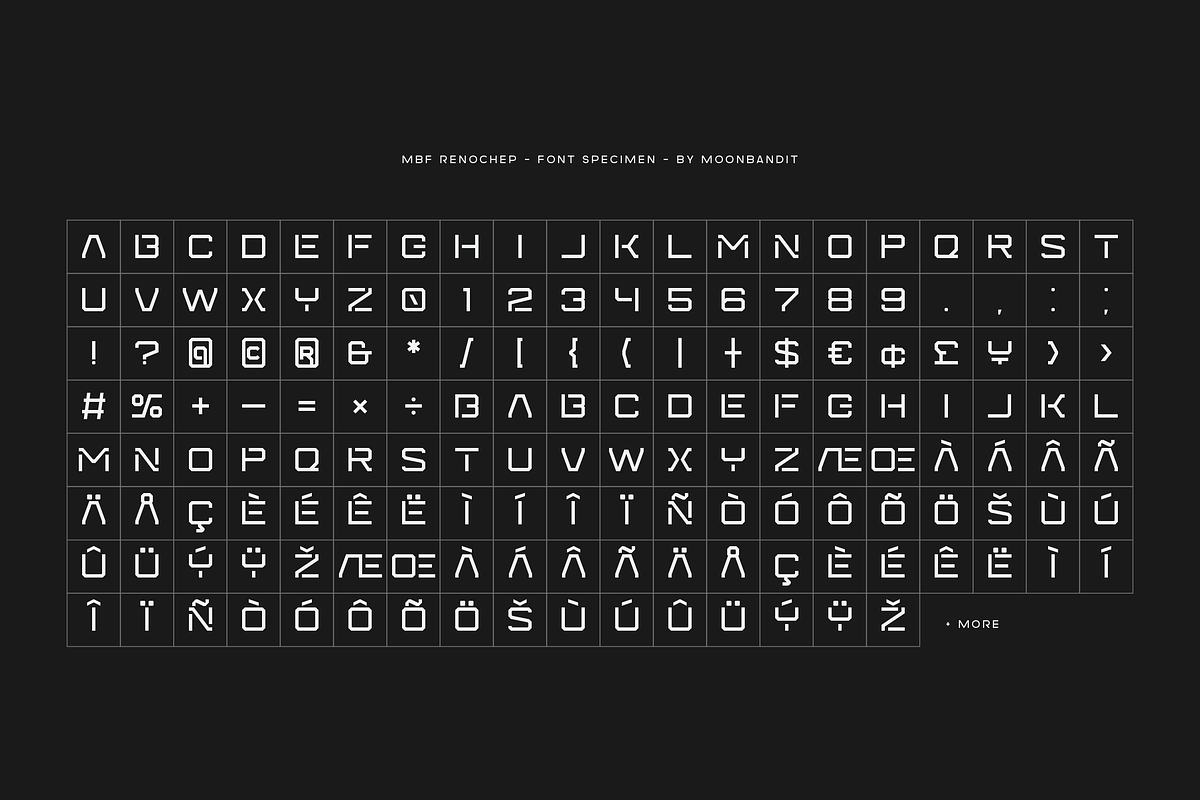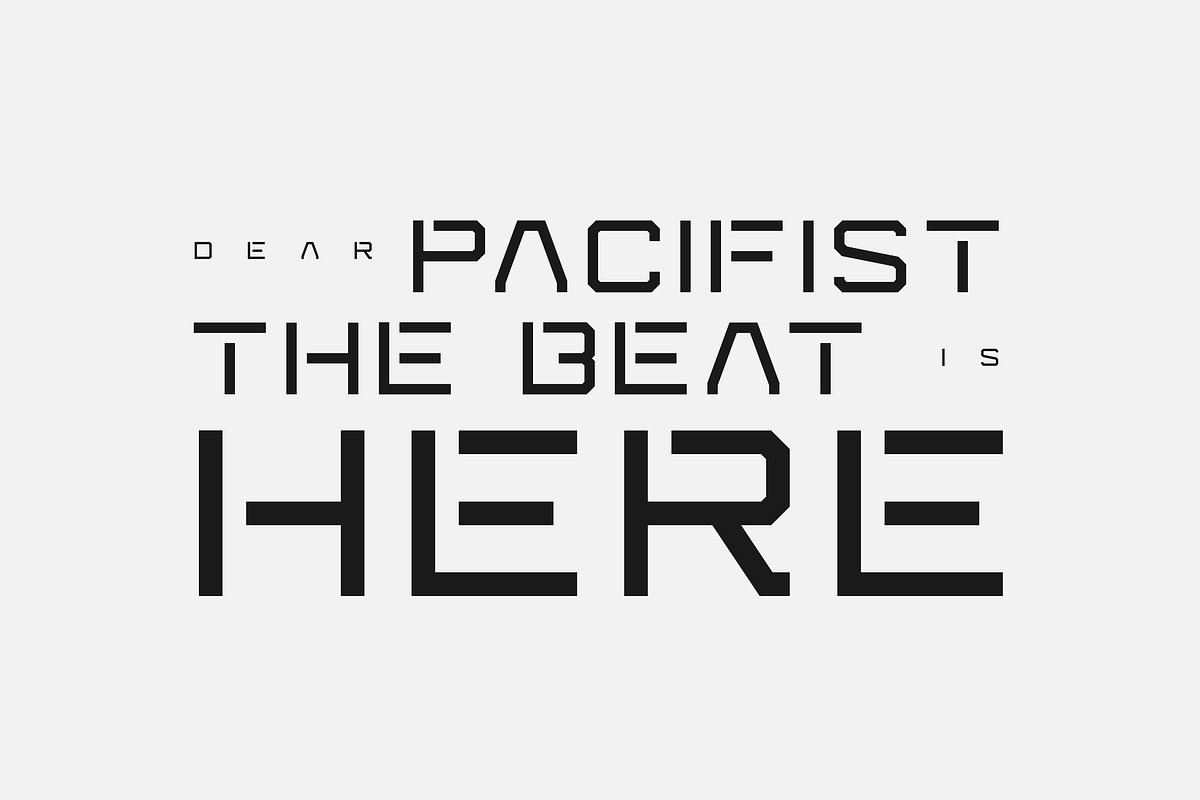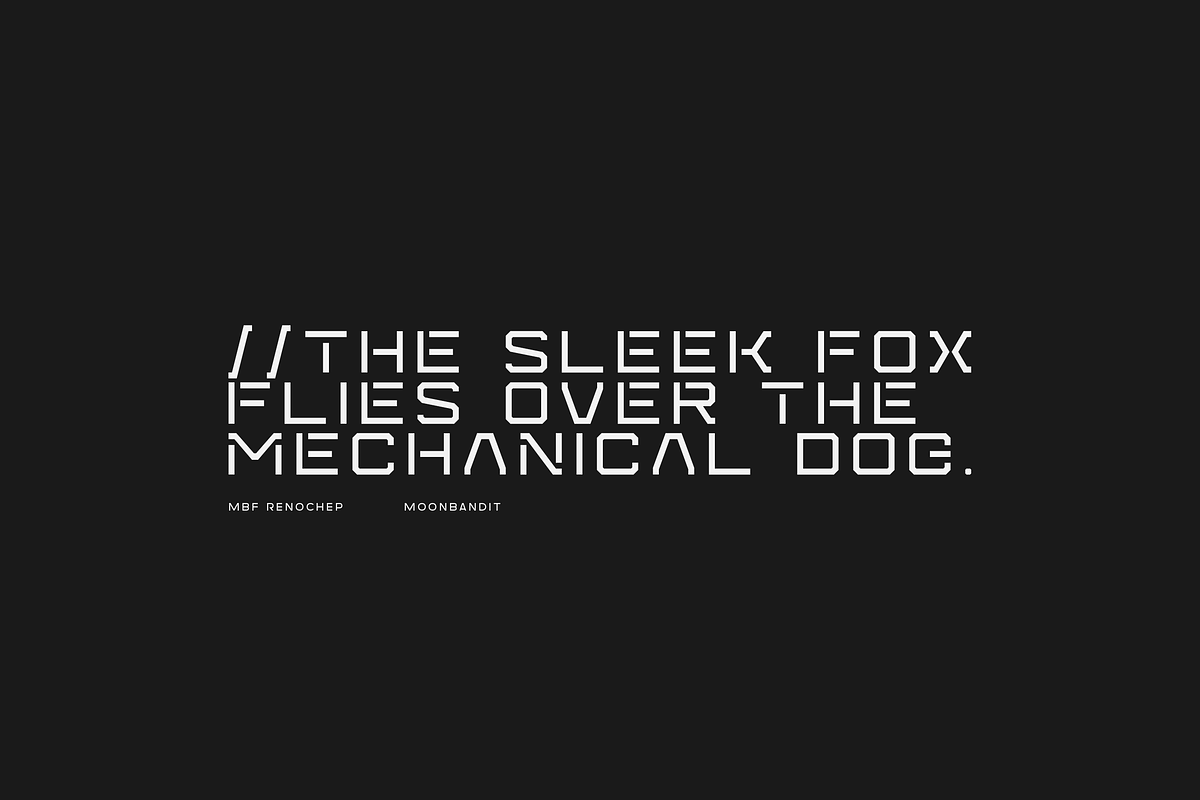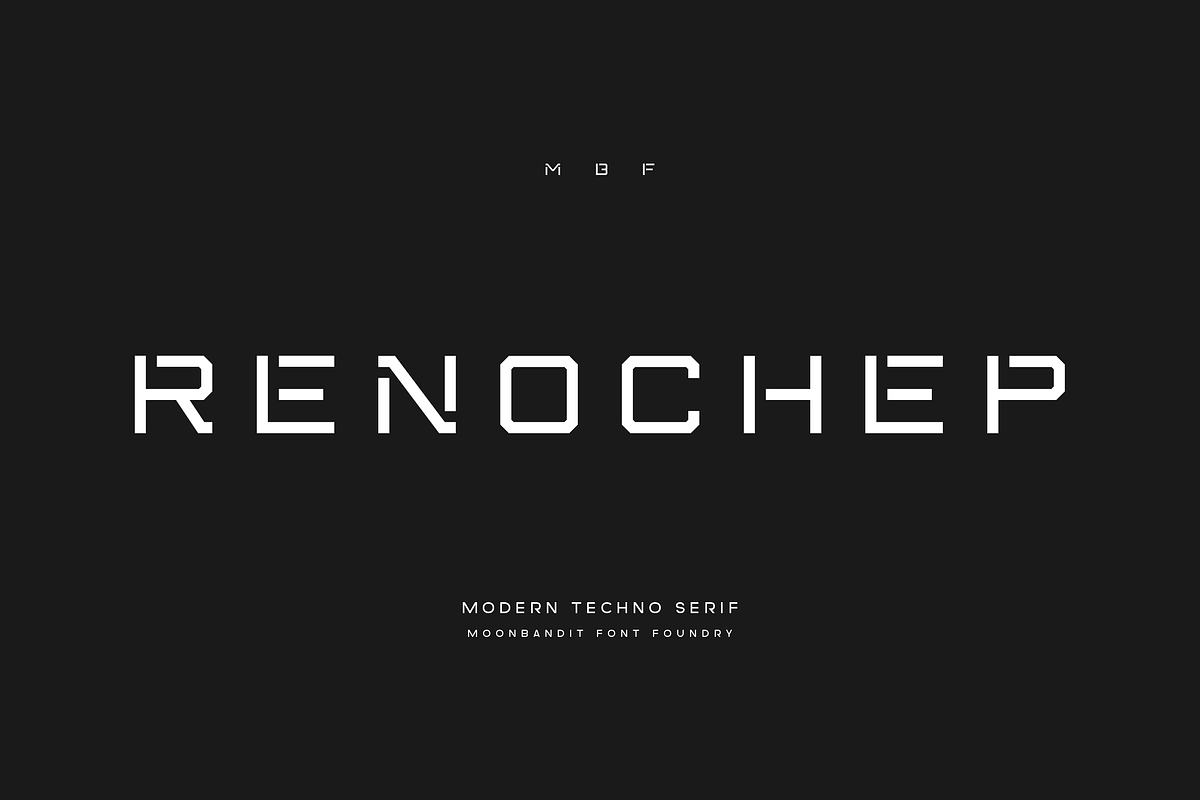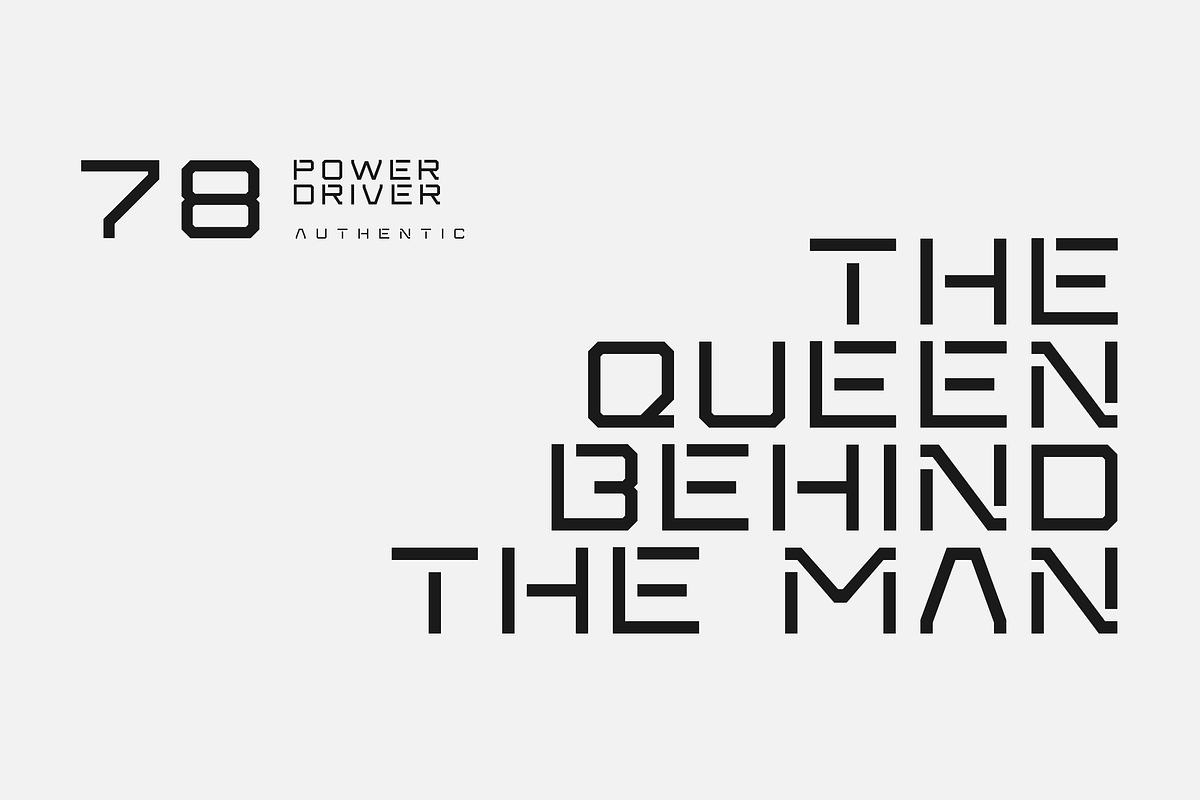
MBF Renochep
Empower your brand’s future with MBF Renochep. This sleek, modern font helps innovate your visual identity, driving business growth and recognition.